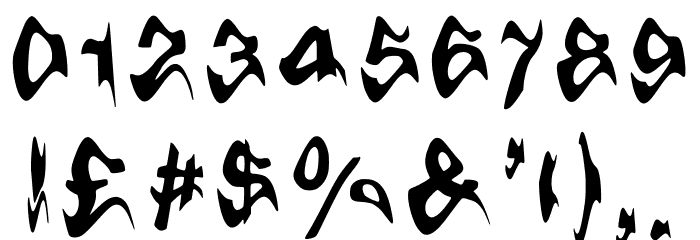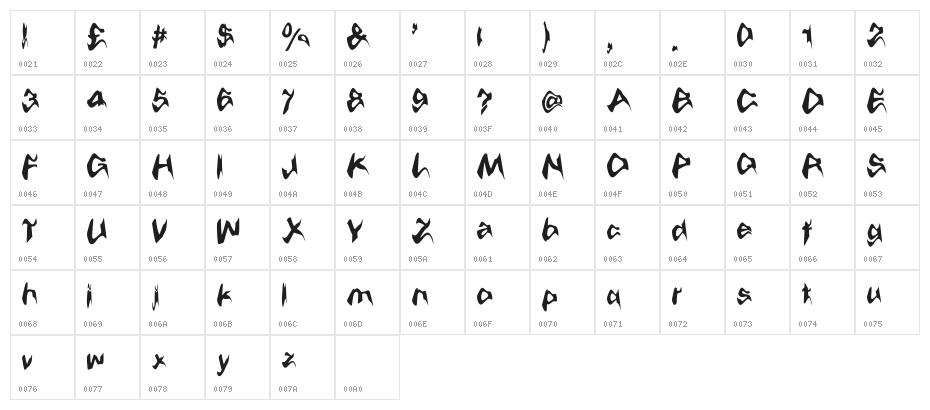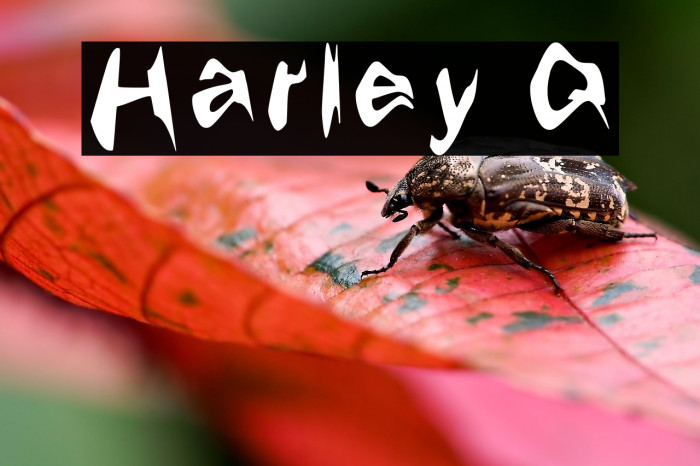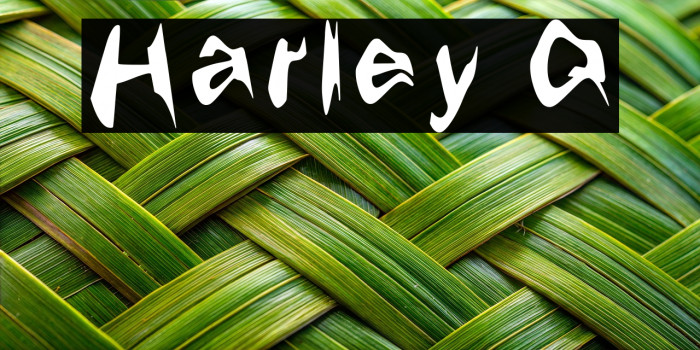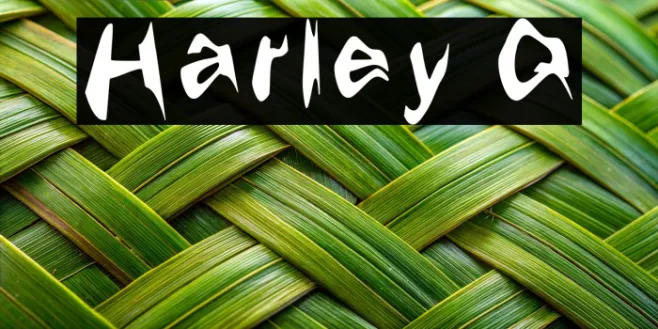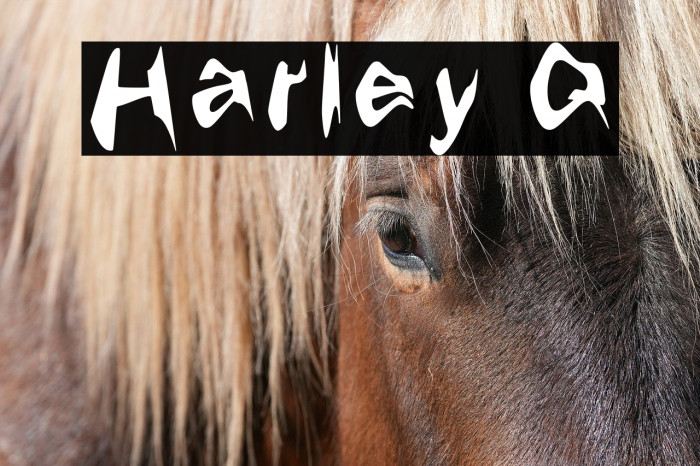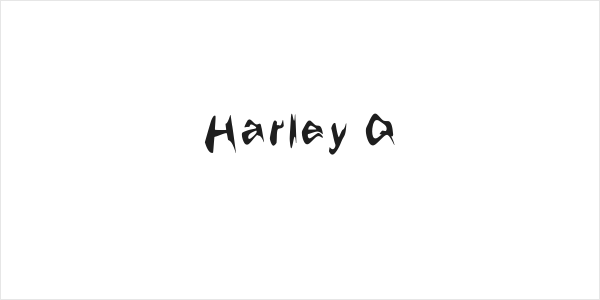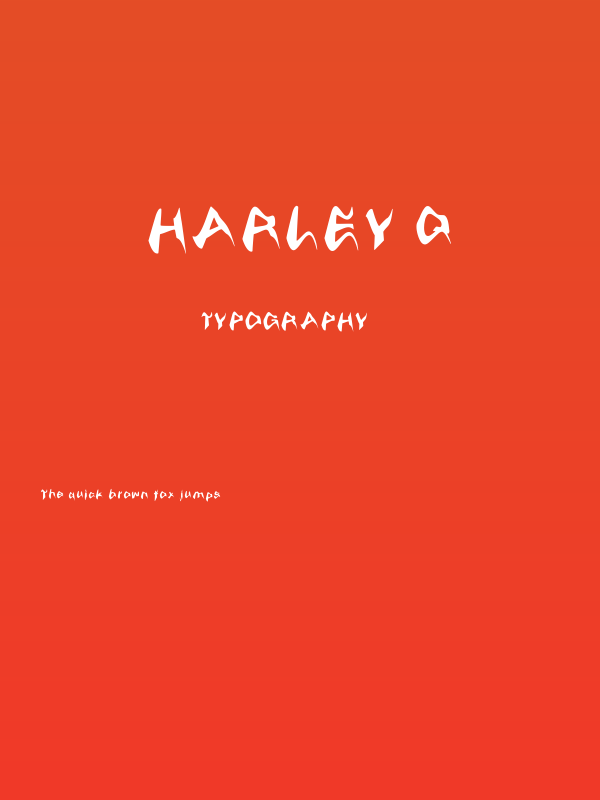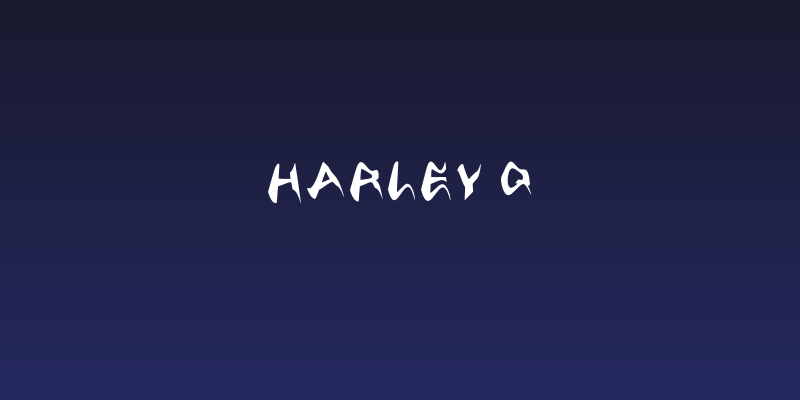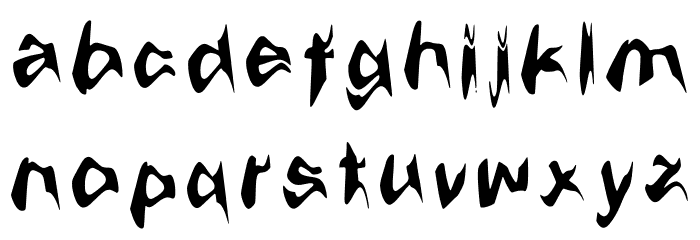
Harley Q Font
Harley Q Description
This font features a bold, dynamic style with sharp, angular strokes and a slightly chaotic appearance. The characters have a hand-drawn quality, with irregular edges and varying thicknesses that give it a unique, edgy feel. The uppercase and lowercase letters maintain a consistent style, while the numbers and special characters integrate seamlessly, adding to the overall aesthetic. The font's design is reminiscent of graffiti or street art, making it stand out with its dramatic flair. Its distinctive look is both modern and rebellious, perfect for projects that require a strong visual impact.
| Overall Style | Modern, Edgy, Rebellious |
| Proposed Projects | Ideal for use in posters, album covers, branding for edgy products, or any design needing a bold, rebellious touch. |